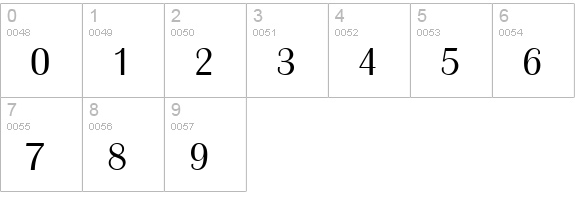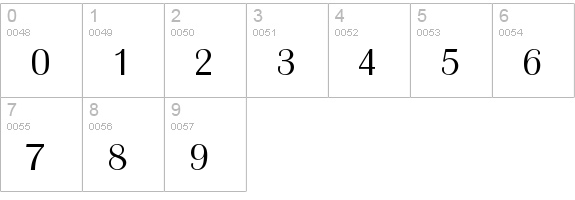
BritannicTLig Font Details
BritannicTLig font is a classic and elegant typeface that exudes sophistication and charm. With its refined letterforms and stylish ligatures, this font is perfect for adding a touch of luxury to your designs. Whether you're working on a high-end branding project or creating elegant wedding invitations, BritannicTLig font will elevate your work to the next level. And the best part? BritannicTLig font is available for free download at FontsMarket.com. This means you can easily access this beautiful typeface and use it in your projects without any cost. Don't miss out on the opportunity to enhance your designs with the timeless beauty of BritannicTLig font - download it today and let your creativity shine!